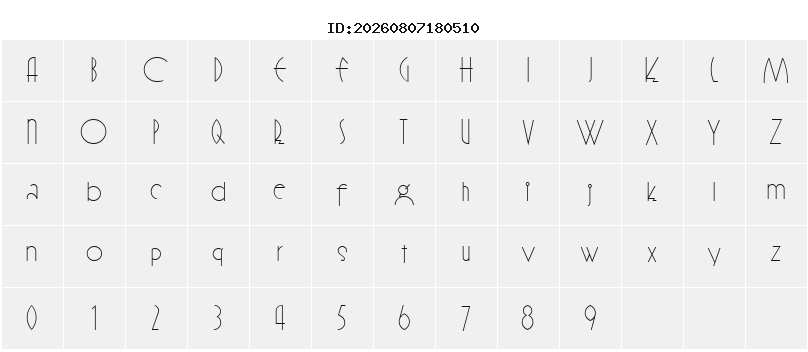
About OKChoraleNF.ttf
OKChoraleNF.ttf is a modern, elegant sans-serif font designed for ultimate readability and visual harmony. Perfect for branding, headlines, web design, and print materials.